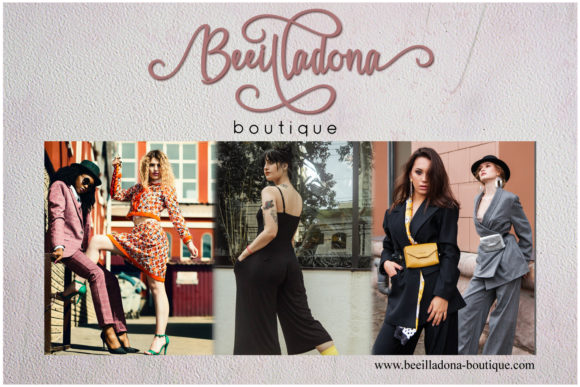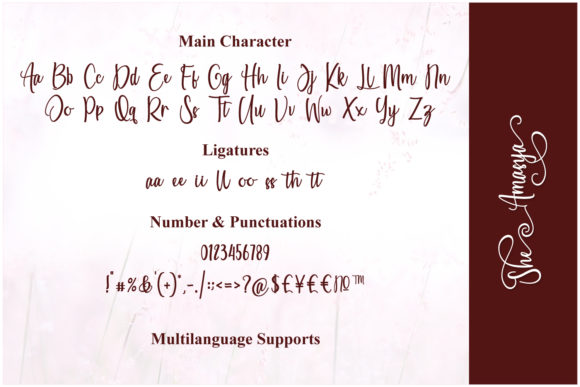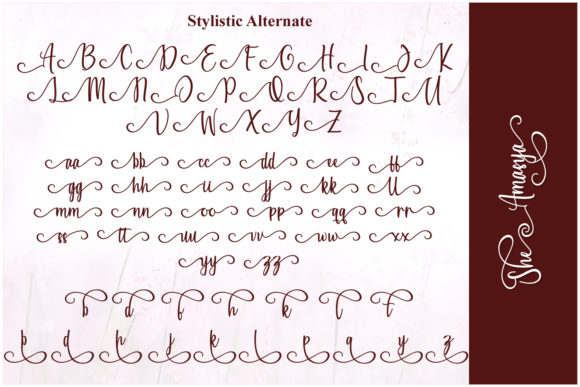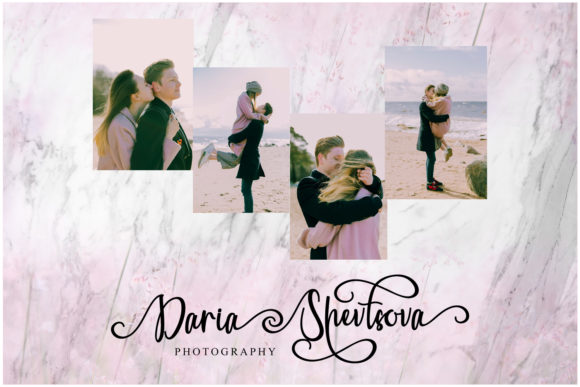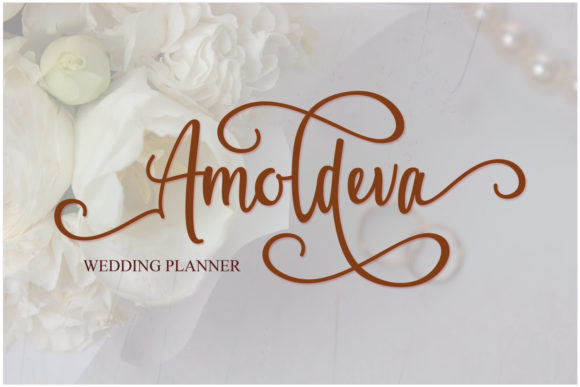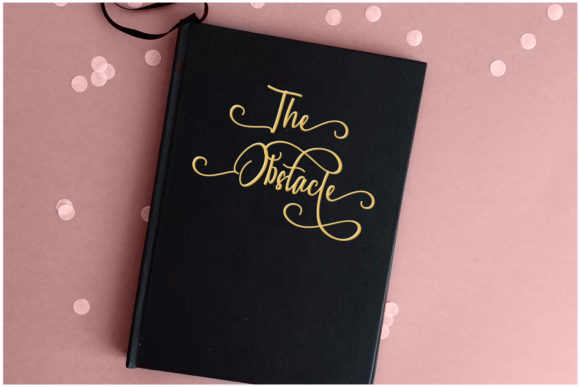
Introduction to She Amasya Font
She Amasya is a stunning script font with a bold twist.
Use it to add a romantic touch to any creative project .
Key Features of She Amasya Font
Why Choose She Amasya Font?
She Amasya Font offers exceptional quality and versatility, making it a valuable addition to your design toolkit. Whether you’re creating for personal projects or commercial use, She Amasya Font delivers professional results.